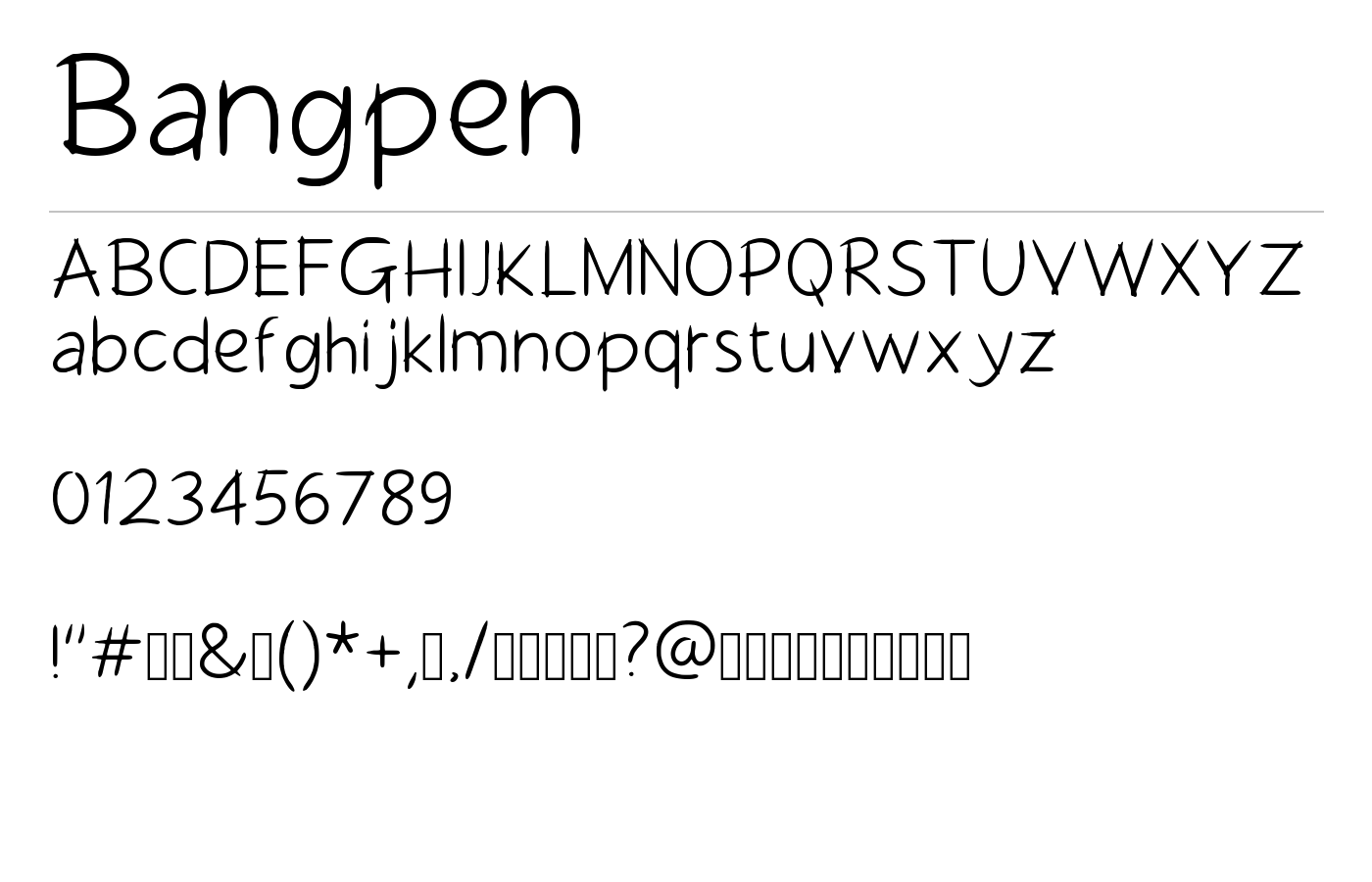
Bangpen is a playful, hand-drawn sans serif font that features light strokes and a casual, friendly style. Its uneven lines and whimsical character shapes give it a charming, informal feel, making it perfect for creative projects, children’s books, or any design that needs a warm, approachable touch. This font works best in headlines, logos, and packaging where a fun, personal vibe is desired.
Bangpen Font
About Bangpen Font